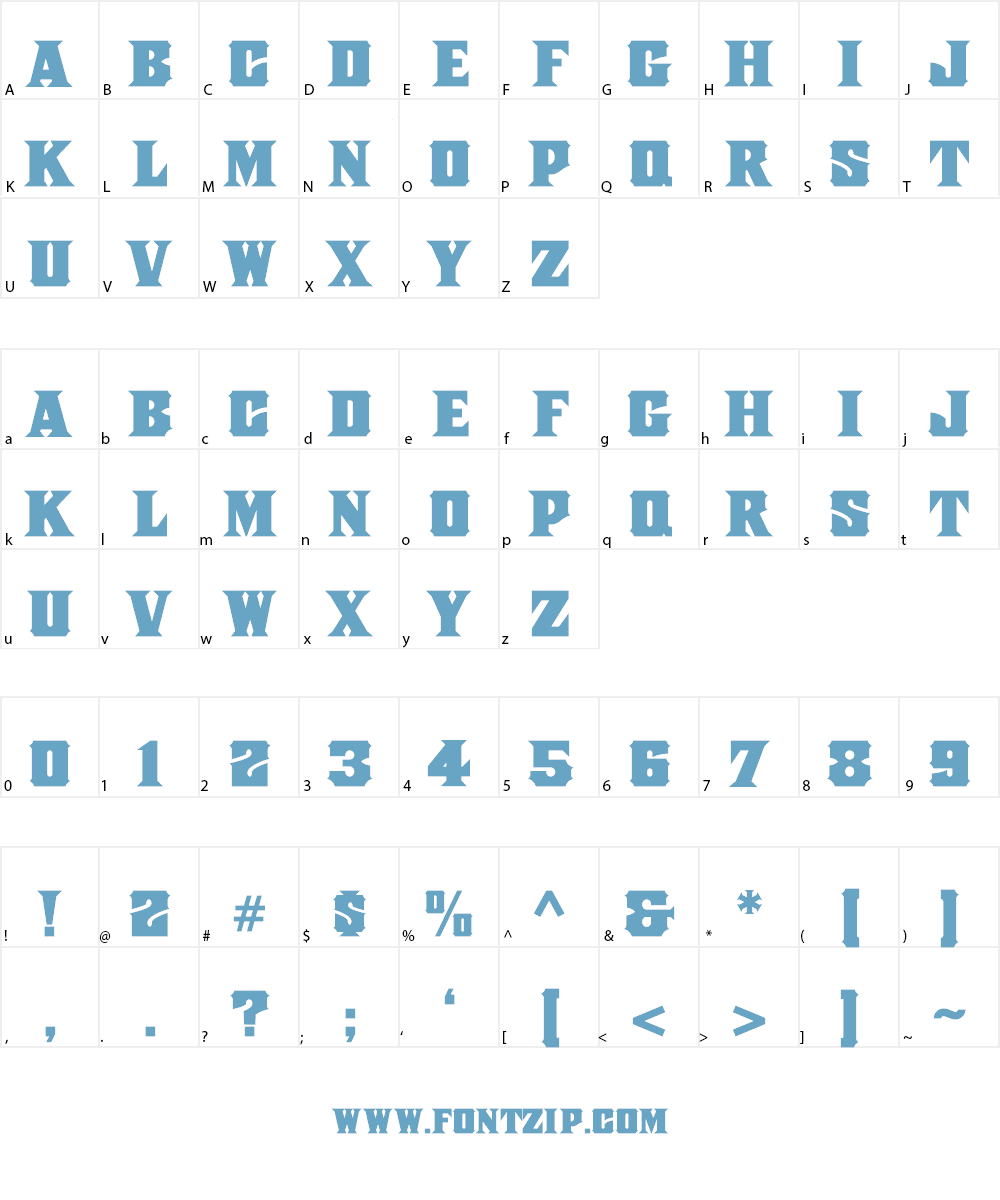
The font was designed specifically for the BestAdvisor site, and the headline of review on chargers for rechargeable batteries. An example of its use can be found here - https://www.bestadvisers.co.uk/rechargeable-battery-chargers